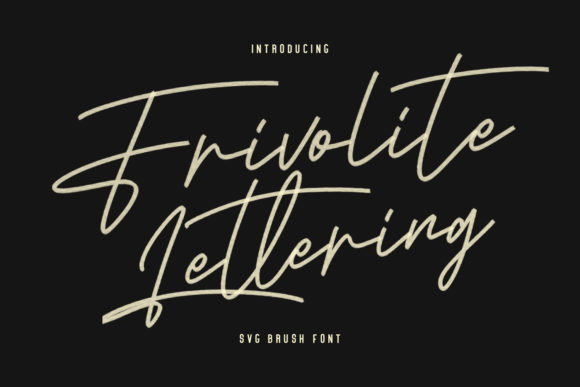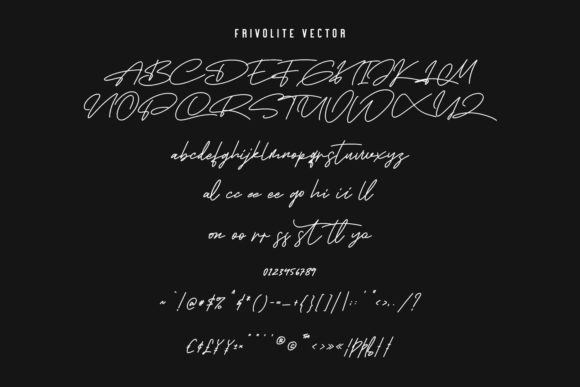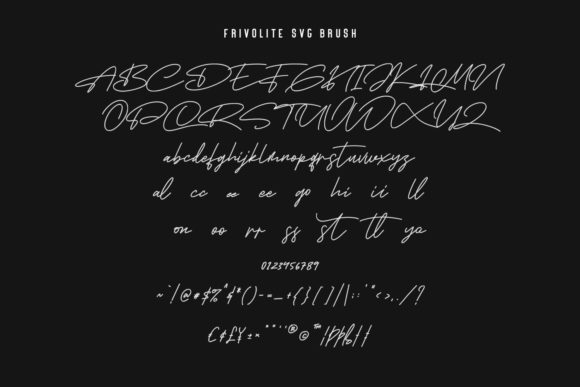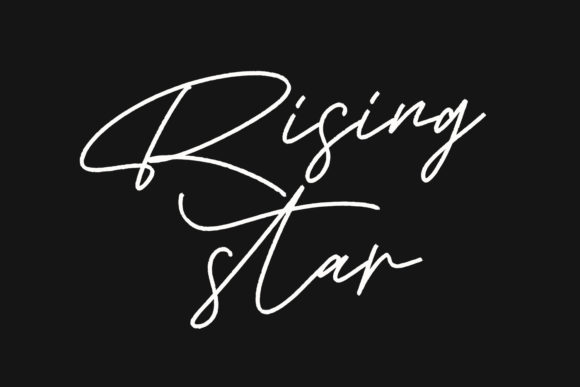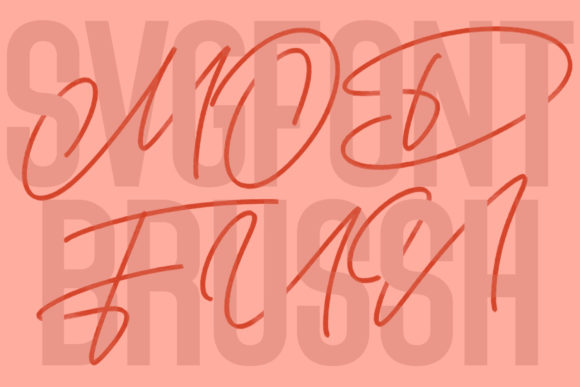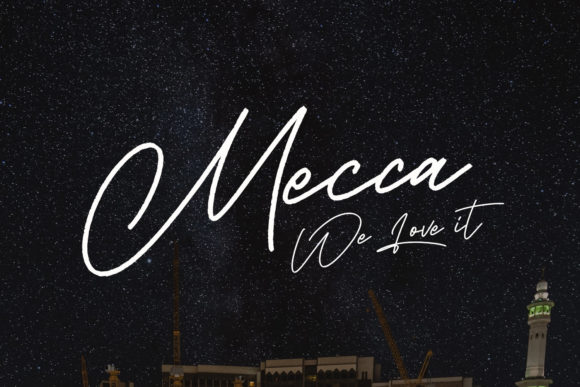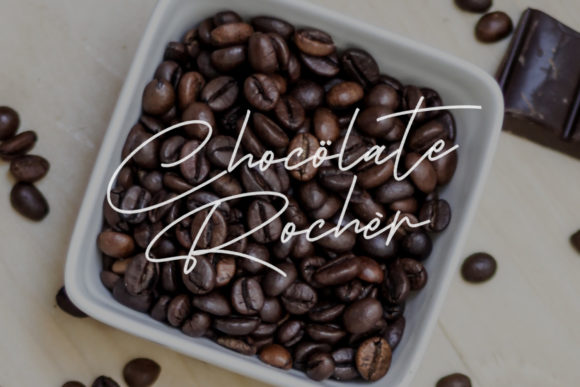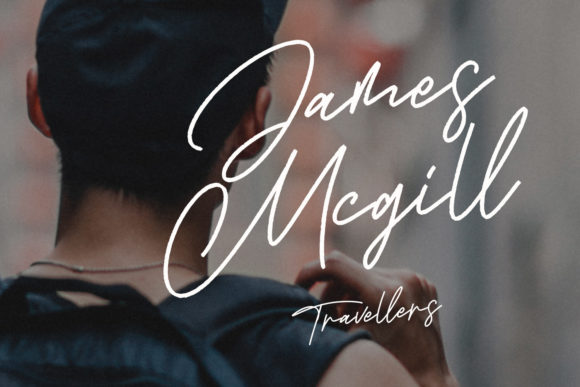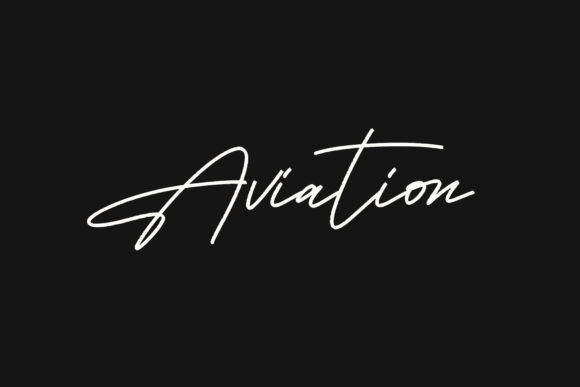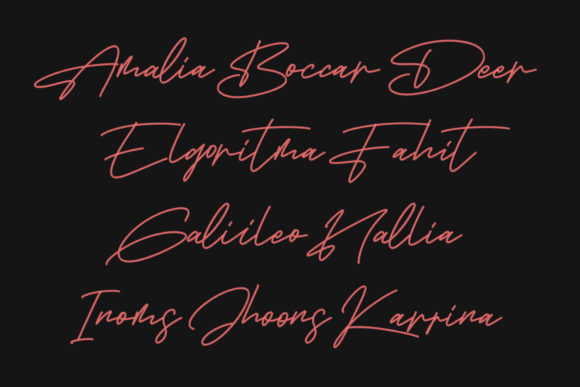
Frivolite Lettering Font
About Frivolite Lettering Font
Frivolite Lettering is a gorgeous hand-brushed font. It features an incredibly classic style, while still keeping a friendly feel. Frivolite Lettering is the perfect font for making original and outstanding designs.